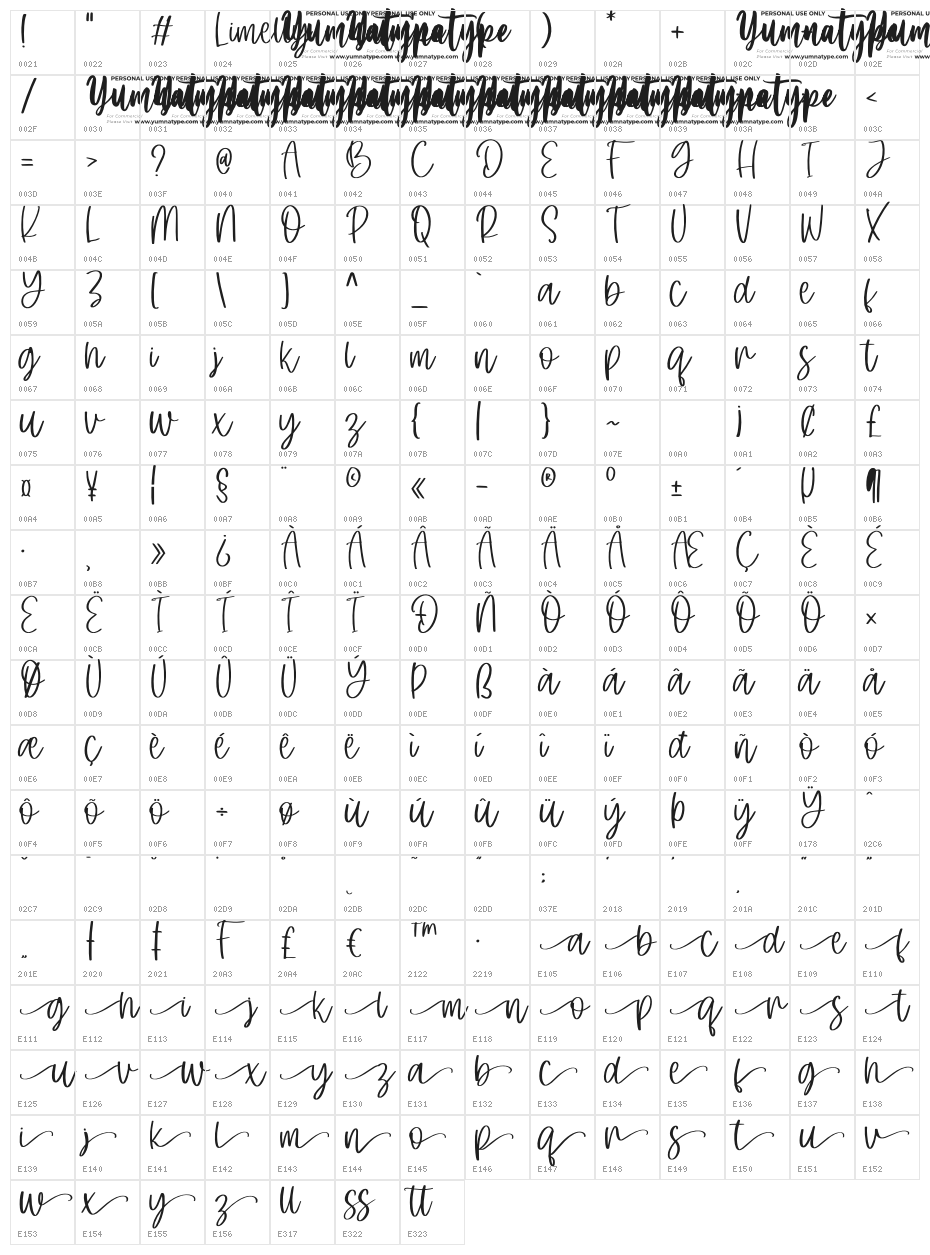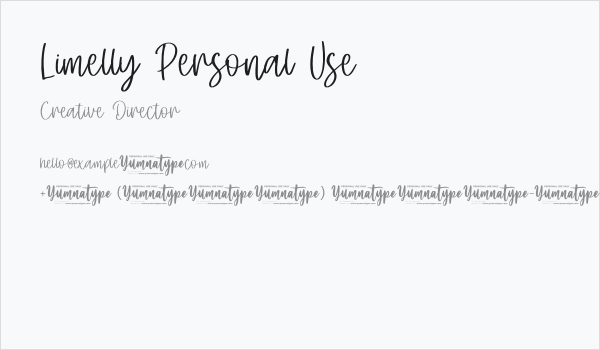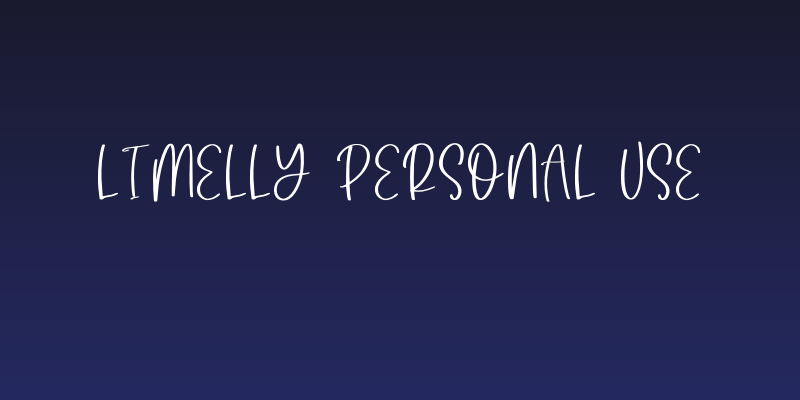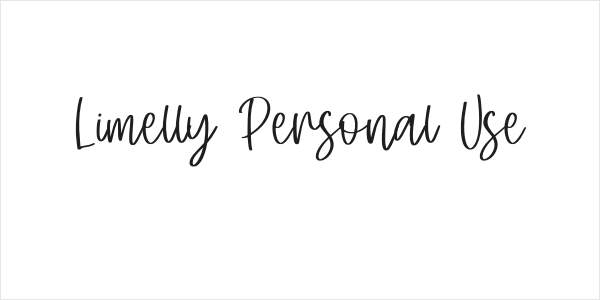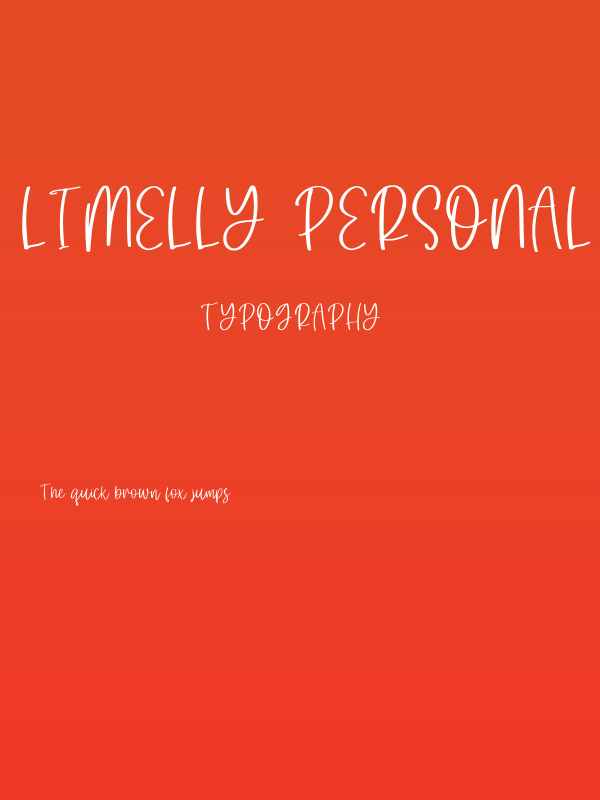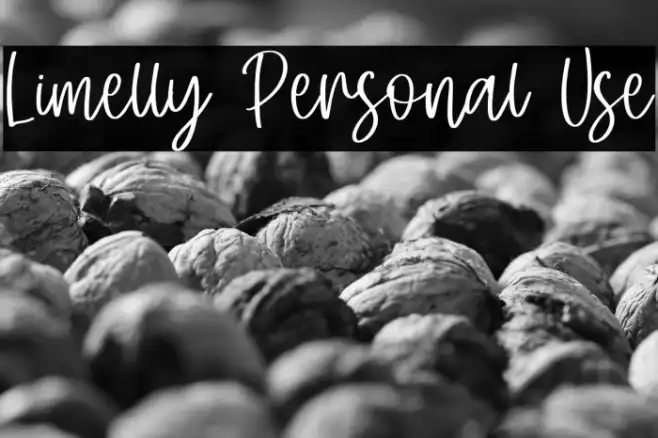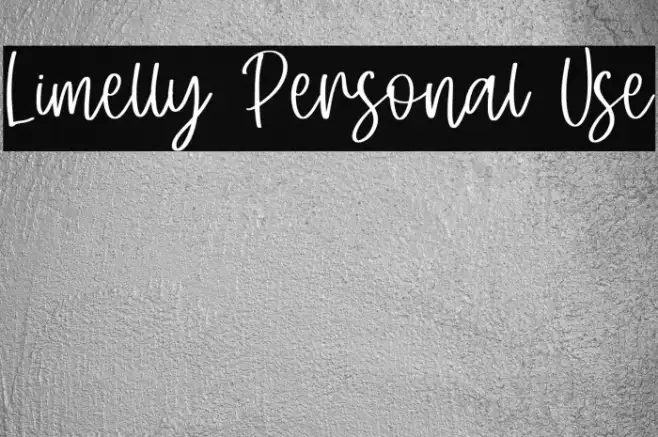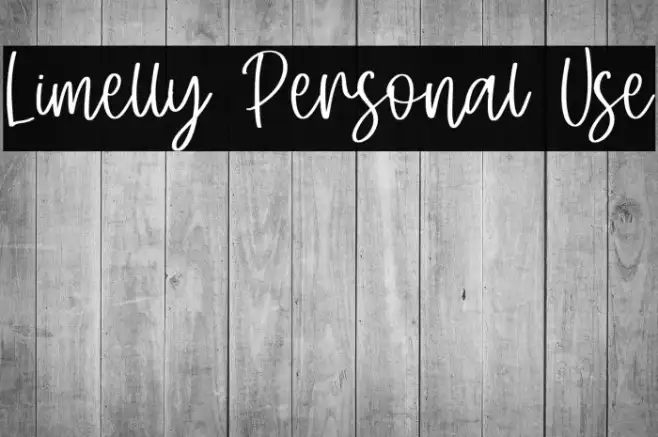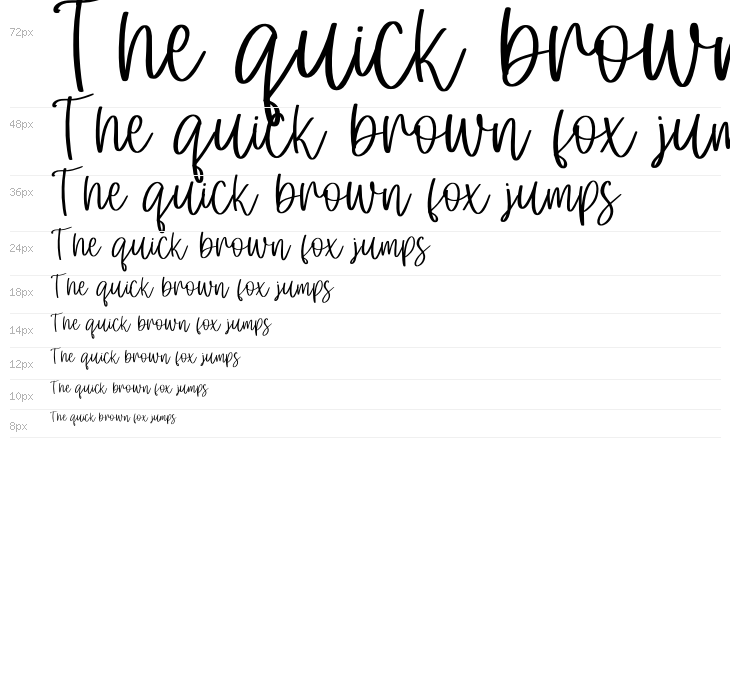
Limelly Personal Use Font
Limelly Personal Use Description
This font features a playful and flowing script style, characterized by its smooth, cursive strokes and elegant loops. The uppercase letters are tall and slightly narrow, with a consistent slant that adds a sense of movement and grace. The lowercase letters are more rounded, maintaining the fluidity and continuity of the script. The overall appearance is casual yet sophisticated, making it suitable for a variety of creative projects. The font includes a full set of uppercase and lowercase letters, numbers, and a selection of special characters, allowing for versatile use in different contexts.
| Proposed Projects | Ideal for wedding invitations, greeting cards, branding, and social media graphics. |